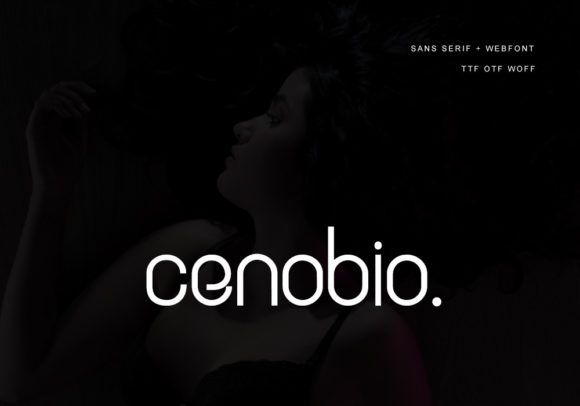
Step into the world of Cenobio, where simplicity and style converge. This extraordinary display font is an artistic expression that brings a touch of elegance and individuality to your creative endeavors.
Imagined by the talented BeeType, Cenobio is a visual masterpiece that captivates with its clean lines, minimalist appeal, and remarkable adaptability. Its versatility knows no bounds, making it the perfect font for a wide array of projects.
Whether you're a seasoned designer or a creative enthusiast, Cenobio is your trusted companion in creating visually stunning web designs, business cards, and countless other projects. Its unique character adds a touch of sophistication and personality, setting your work apart and leaving a lasting impression.
We've carefully crafted Cenobio to be the perfect choice for crafting eye-catching headlines in HTML. Its sharp edges and distinct forms command attention, drawing your audience in and captivating them with your message. With Cenobio, your words become art, making every headline a statement of style and creativity.
Unlock the power of Cenobio today and elevate your designs to new heights. Its timeless beauty and adaptability make it a must-have addition to your font collection, empowering you to create truly remarkable and memorable designs.